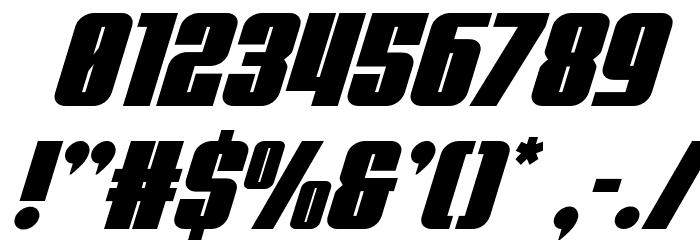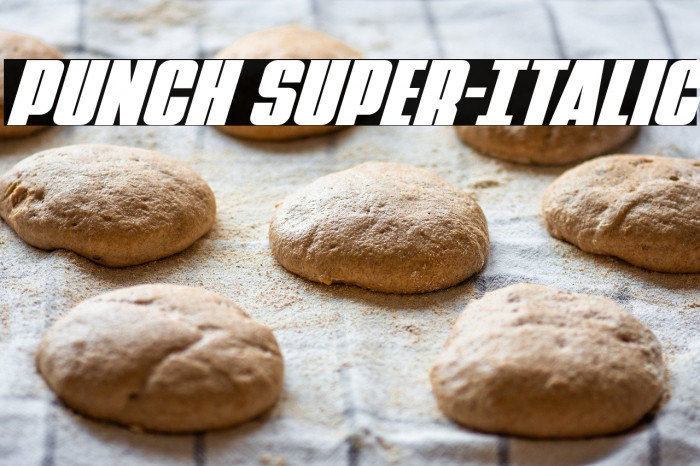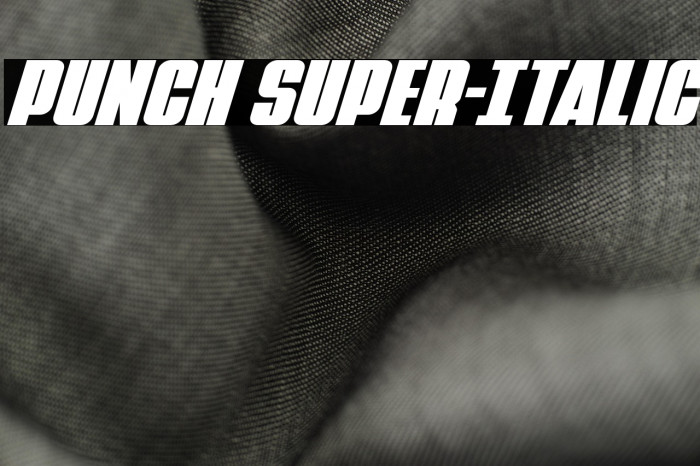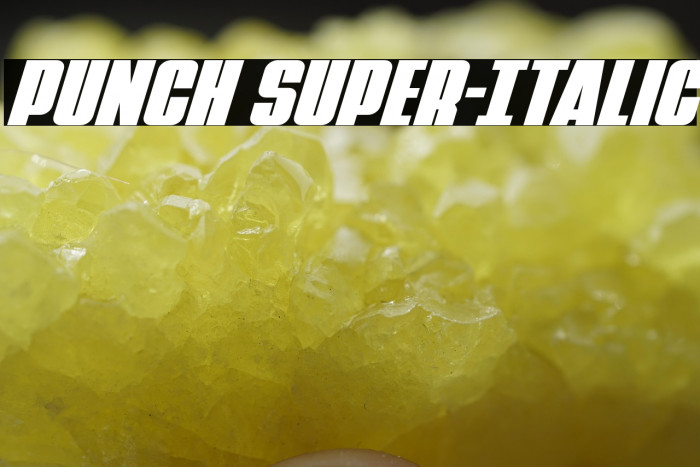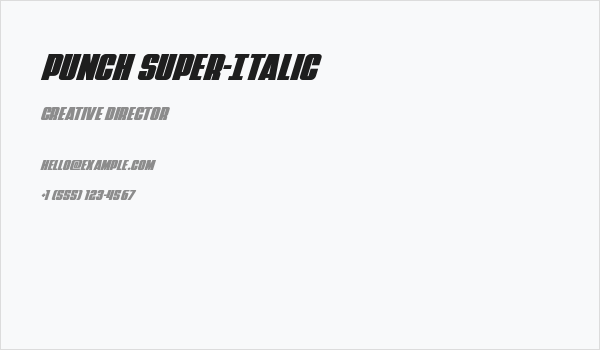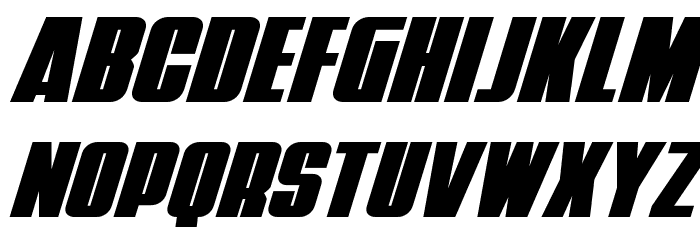
Punch Super-Italic Font
Punch Super-Italic Description
This font features a bold and dynamic style with a strong italic slant, giving it a sense of motion and energy. The characters are thick and robust, with a slightly condensed width that enhances its impactful appearance. The uppercase and lowercase letters maintain a consistent weight, providing a uniform look across all characters. The numbers and special characters follow the same bold and italicized style, ensuring cohesion throughout. The font's high contrast in stroke thickness adds to its striking presence, making it ideal for attention-grabbing designs.
Proposed ProjectsIdeal for sports branding, dynamic posters, action-themed graphics, and bold headlines.